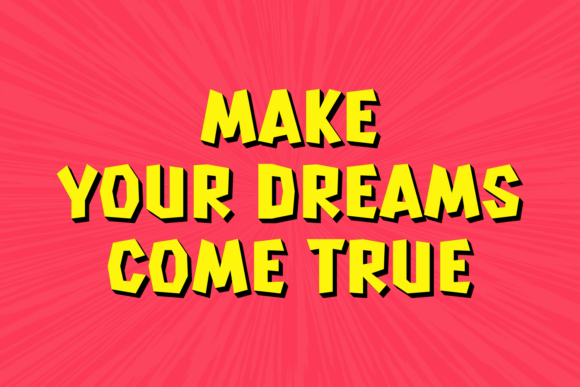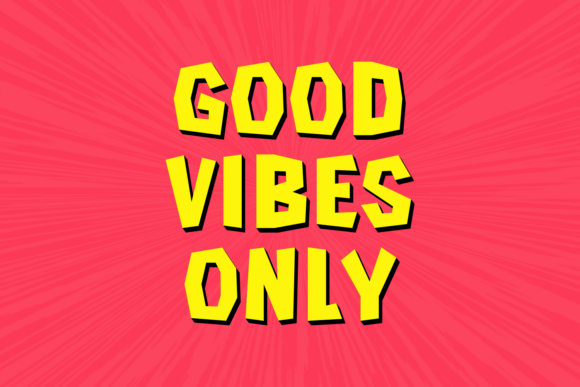
Introduction to Partime Font
Have you ever found yourself lost in the world of comic books, imagining the possibilities of a character’s next adventure? That’s exactly where the Partime Font comes in – a high-quality display font that brings a dash of cartoon style and comic book edge to your creative projects. Its infectious spirit and imagination will transport you to a world of vibrant colors and limitless possibilities.
As a valuable resource for designers, the Partime Font offers a free download with a transparent background, making it the perfect addition to any design project. Its refined yet playful character makes it an ideal choice for creative projects that demand a sense of joy and casual fun. Whether you’re working on a graphic novel, a video game, or a marketing campaign, the Partime Font is sure to captivate your audience with its unique charm.
Key Features of Partime Font
- High-quality design for creative projects: Partime Font is a premium font designed to meet the needs of modern designers, offering a unique and stylish look for various creative projects.
- Transparent background: Partime Font comes with a transparent background, allowing designers to easily combine it with other design elements and create stunning visual effects.
- Unique characteristics: Partime Font features a distinctive blend of modern and vintage elements, making it an excellent choice for designers who want to add a touch of sophistication to their work.
- Design resource: Partime Font is a valuable design resource for designers who want to create high-quality, visually appealing designs for their creative projects.
Honest Review: Partime Font
As a designer, I’m always on the lookout for high-quality design resources that can elevate my creative projects. Recently, I stumbled upon the Partime Font, and I’m excited to share my honest review with you.
What works well: ✨ The Partime Font is a stunning addition to any design project. Its modern and sleek aesthetic makes it perfect for creating a professional and sophisticated look. The font is also available for free download, making it an excellent resource for designers on a budget.
The font features a transparent background, which allows for seamless integration with any design element. I love how versatile it is and how easily it adapts to different design styles.
- Modern and sleek aesthetic
⚠️ However, one limitation I noticed is that the font may not be suitable for very small text sizes. At times, the letters can become slightly blurry, which may affect the overall readability of your design.
Overall, I’m impressed with the Partime Font. It’s a fantastic design resource that can add a touch of sophistication to any creative project. While it may have some limitations, it’s definitely worth considering for your next design endeavor.
Design Tips
For the most out of Partime Font, use it in high-quality designs, such as creative projects with transparent backgrounds. This font is ideal for design resources that require a unique and modern look. Experiment with different font sizes, colors, and arrangements to achieve the desired effect.
Partime Font is commonly used in design projects that require a modern and creative look. It’s ideal for branding, logos, social media graphics, and other design resources. The font’s transparent background makes it perfect for use on images and graphics with complex backgrounds.